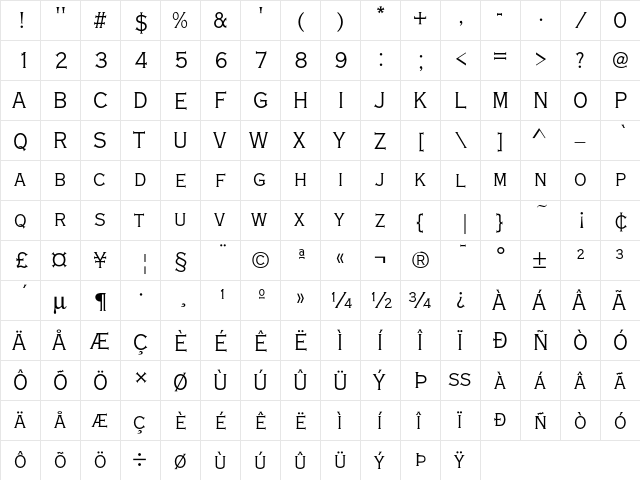
CoppeTLigCon Regular Font Preview
CoppeTLigCon Regular
Design Context for CoppeTLigCon Typeface
CoppeTLigCon offers clean, dependable letterforms without strong stylistic allegiance, making it a practical choice for designers who need flexibility.